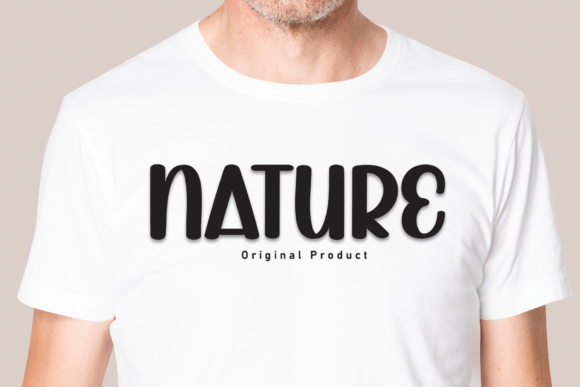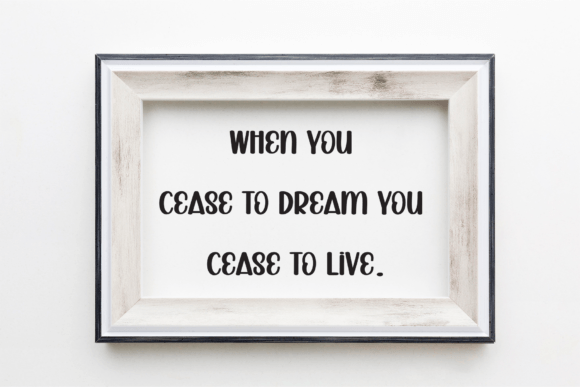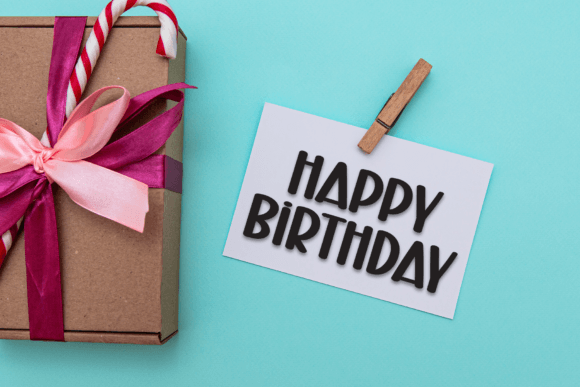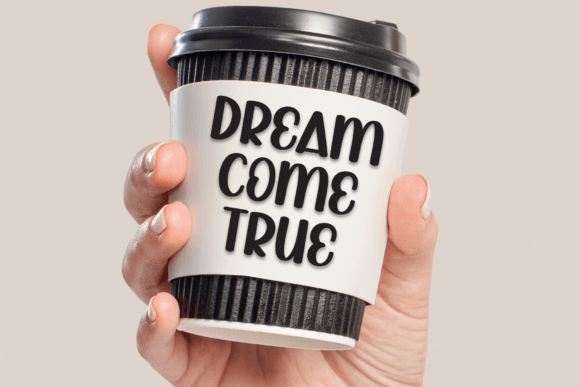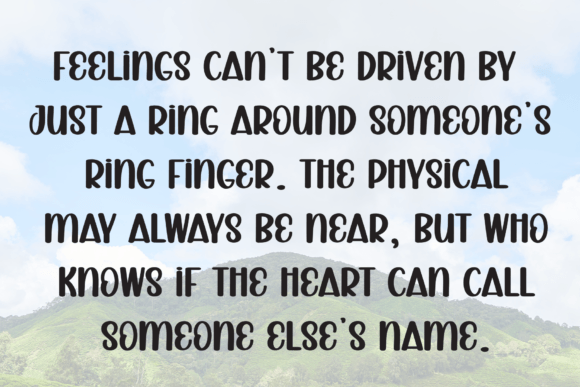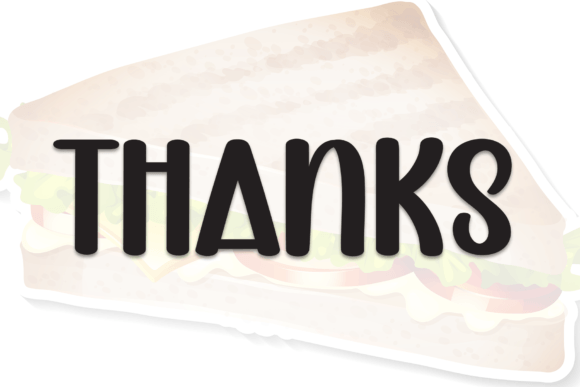
Introducing Drawing Sandwich Font: A Sweet and Friendly Handwritten Delight
Are you a designer, crafter, or DIY enthusiast looking for a font that can add a personal touch to your projects? Look no further than Drawing Sandwich Font, a sweet and friendly handwritten font that’s perfect for a wide range of designs. With its natural and unique style, Drawing Sandwich Font is incredibly versatile and can be used in various creative projects, from crafting and scrapbooking to branding and advertising.
Handwritten fonts have a special charm that can make any design feel more approachable and personal. They can evoke emotions and create a sense of connection with the reader. Drawing Sandwich Font is no exception. Its handwritten style is warm, inviting, and perfect for designers who want to add a human touch to their work.
What Makes Drawing Sandwich Font Special?
So, what sets Drawing Sandwich Font apart from other handwritten fonts? Here are a few features that make it a standout:
- Natural and Unique Style: Drawing Sandwich Font has a one-of-a-kind style that’s both natural and unique. It’s perfect for designers who want to create something that stands out from the crowd.
- Versatility: This font can be used in a wide range of designs, from playful and whimsical to elegant and sophisticated.
- Easy to Read: Despite its handwritten style, Drawing Sandwich Font is easy to read and understand, making it perfect for body text and headlines.
Use Cases for Drawing Sandwich Font
The possibilities are endless when it comes to using Drawing Sandwich Font. Here are a few ideas to get you started:
- Crafting and Scrapbooking: Add a personal touch to your scrapbook pages, journals, and craft projects with Drawing Sandwich Font.
- Branding and Advertising: Use Drawing Sandwich Font to create unique and memorable brand identities, logos, and advertisements.
- Wedding and Party Decor: Create beautiful wedding invitations, party decorations, and other celebratory materials with Drawing Sandwich Font.
- Digital Products: Use Drawing Sandwich Font in your digital products, such as printable art, planners, and organizers.
Tips for Using Drawing Sandwich Font
Here are a few tips to help you get the most out of Drawing Sandwich Font:
- Experiment with Colors: Try pairing Drawing Sandwich Font with different colors and textures to create unique and eye-catching designs.
- Mix and Match Fonts: Combine Drawing Sandwich Font with other fonts to create interesting and dynamic typography.
- Play with Size and Scale: Experiment with different font sizes and scales to create visual interest and hierarchy in your designs.